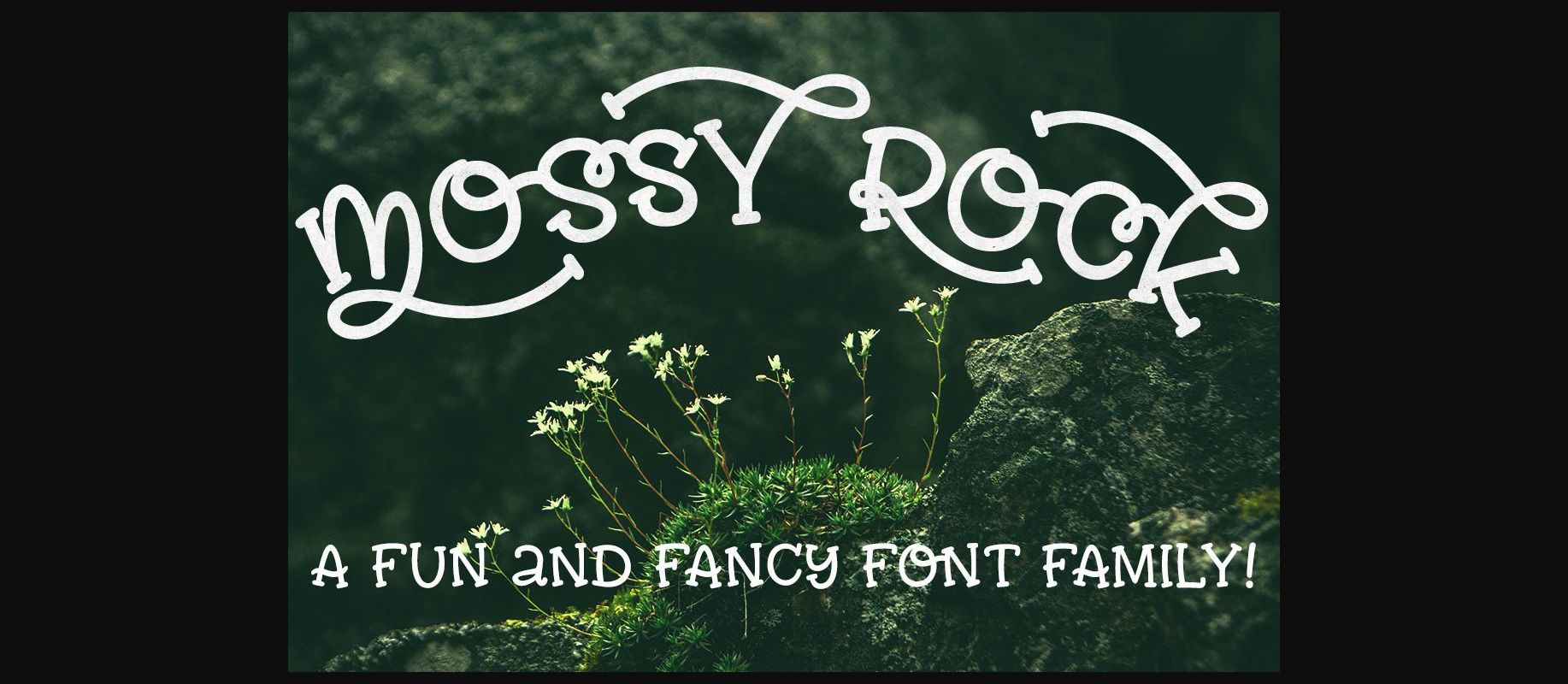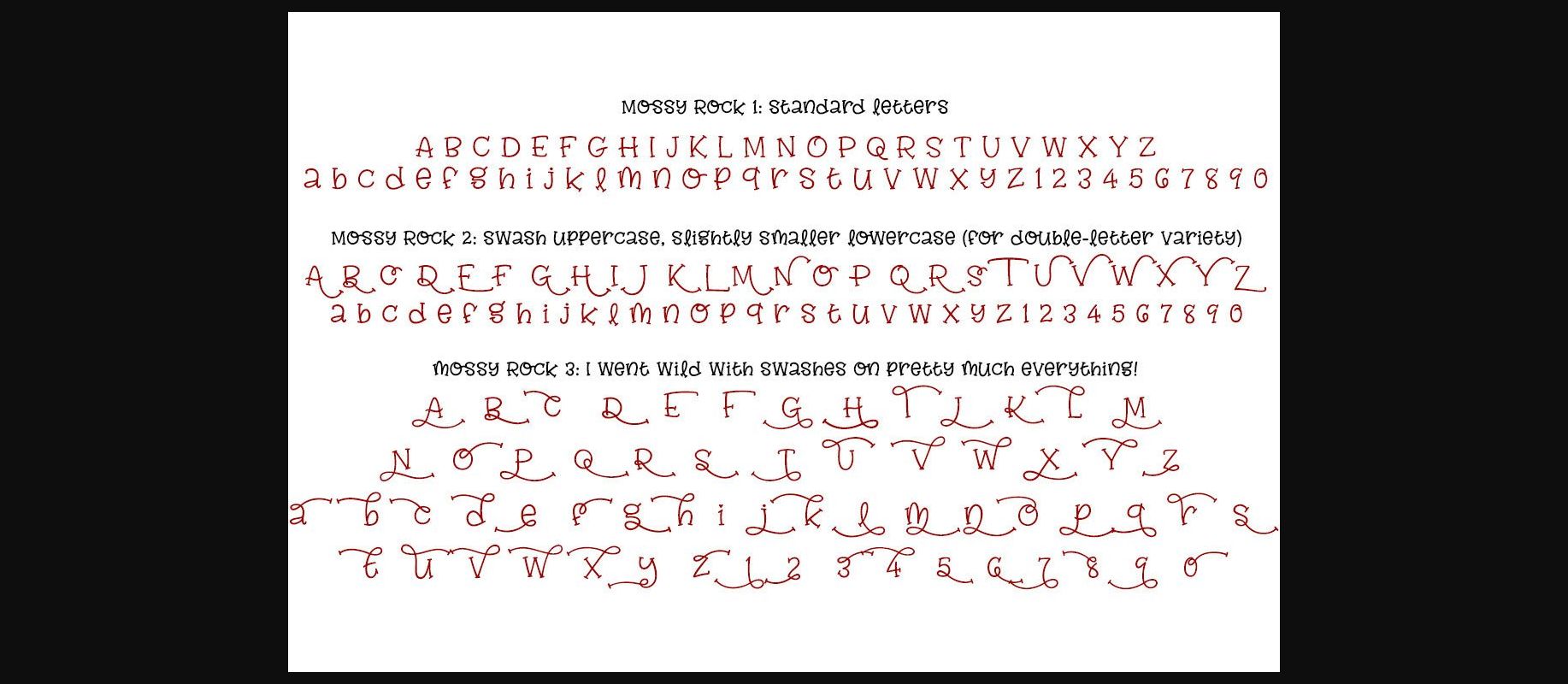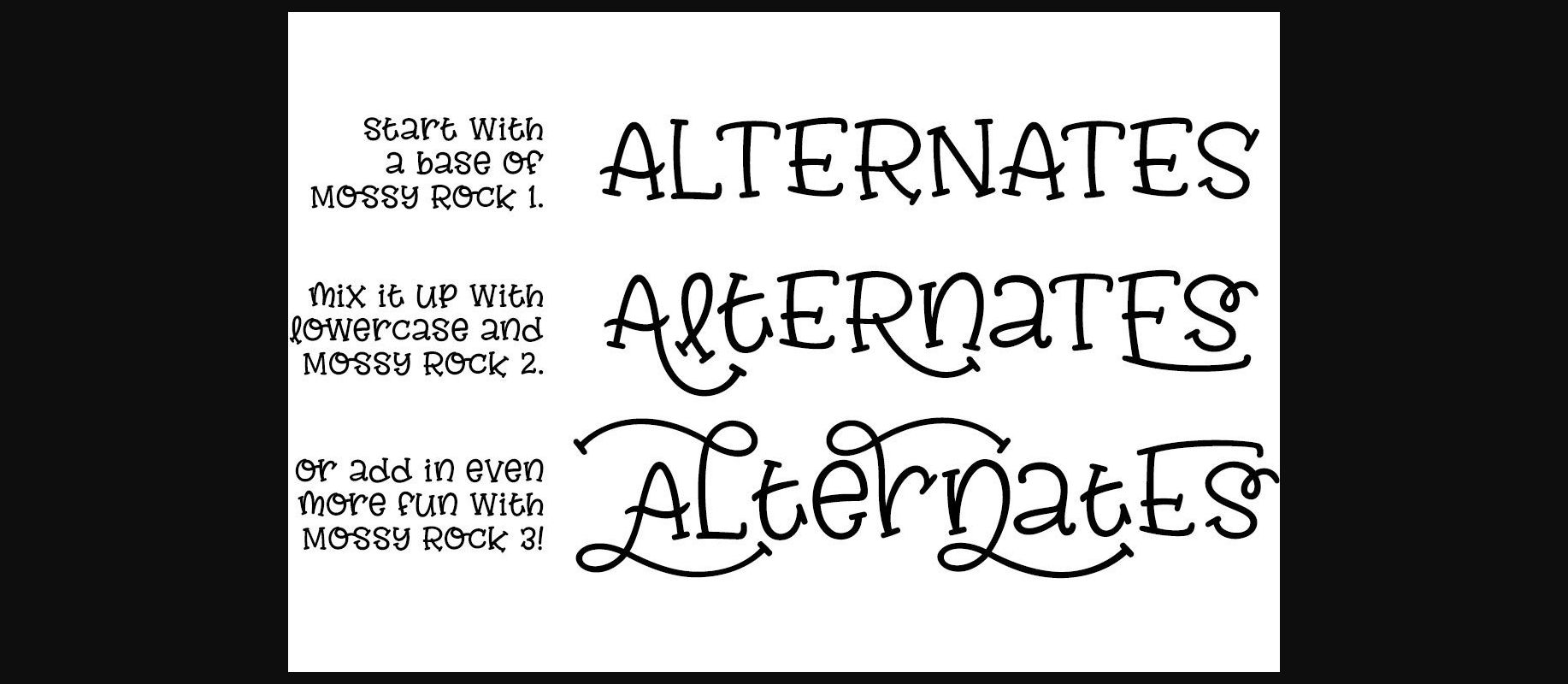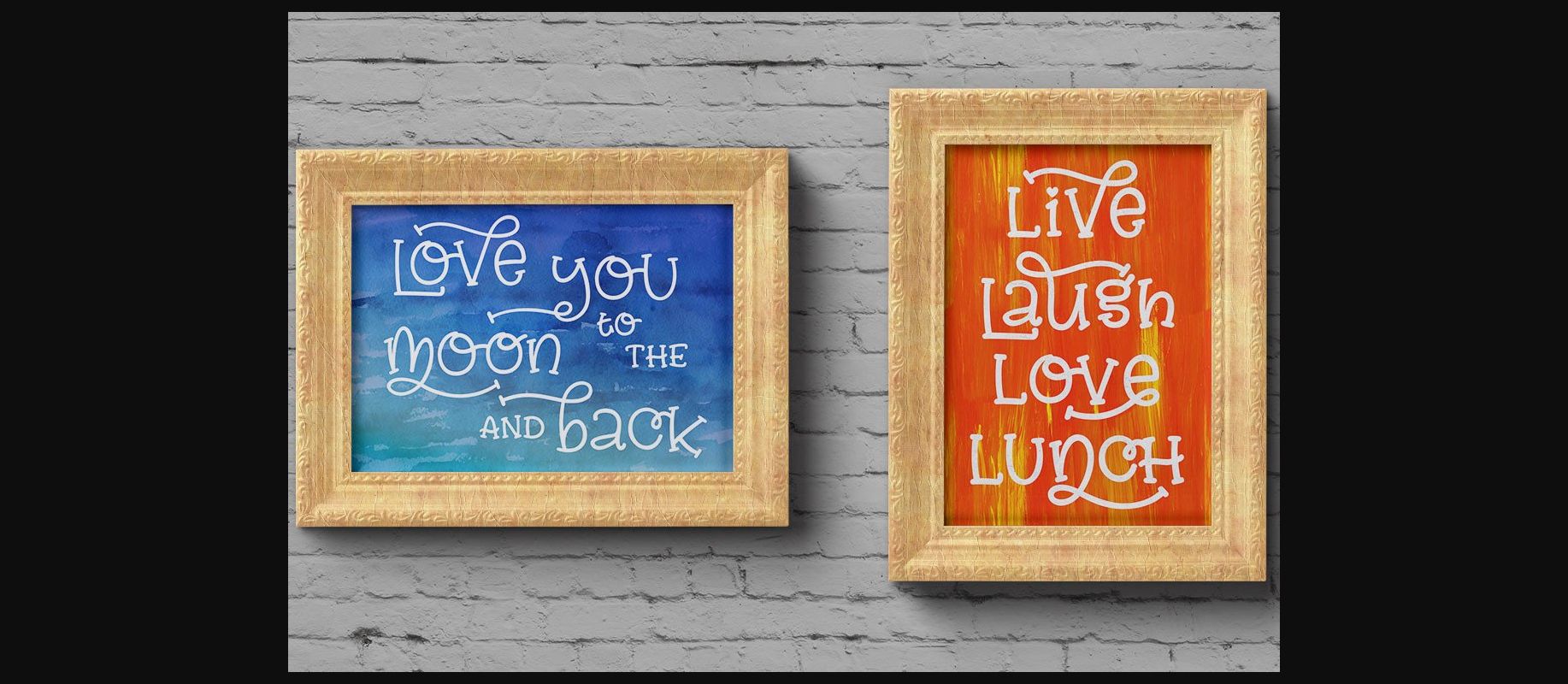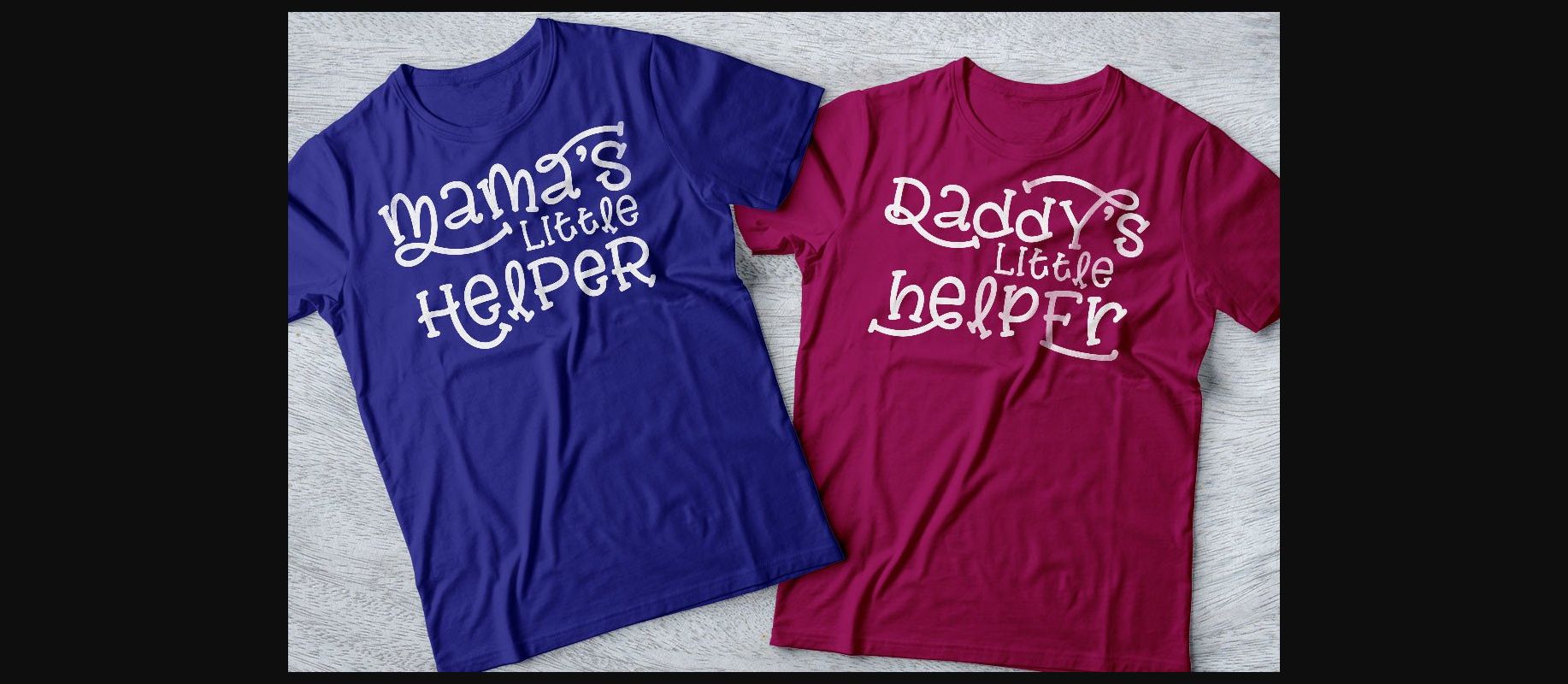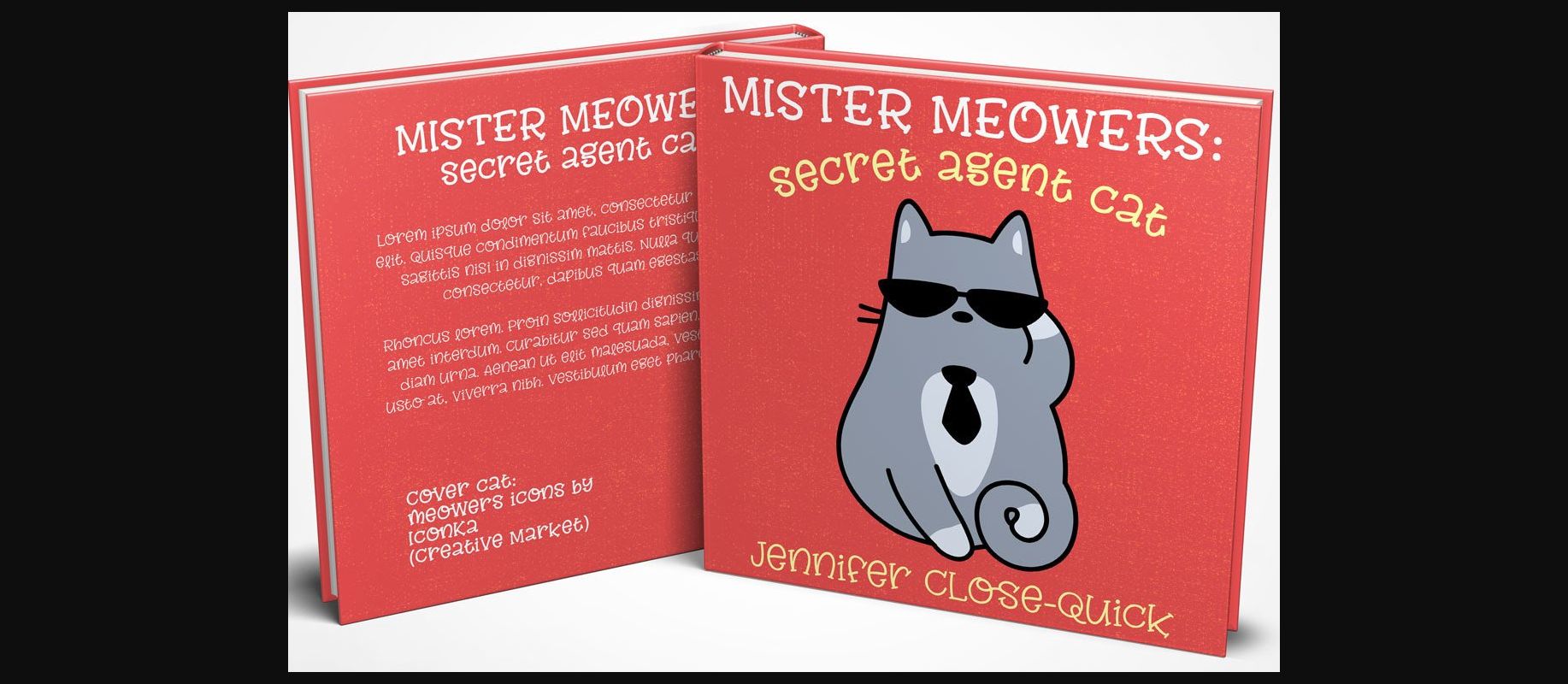
Mossy Rock Font
Here’s Mossy Rock, a set of three fun hand-lettered fonts (in two weights) that mix and match and work together!
Mossy Rock 1 is the base: straightforward, but still quirky and fun. The uppercase and lowercase are all the same height, so you can mix cases in every word for more variety.
Mossy Rock 2 steps it up a notch: the uppercase characters all have a little swash or quirky feature, while the lowercase and numbers are all slightly smaller versions of 1 (to help make those double-letter words not look so computer-made).
Mossy Rock 3 throws caution to the wind, and adds fun swashes and loops on all of the uppercase, lowercase, and numbers.
While Mossy Rock 1 works great on its own, by combining the three styles together you can get an unlimited number of unique combinations!